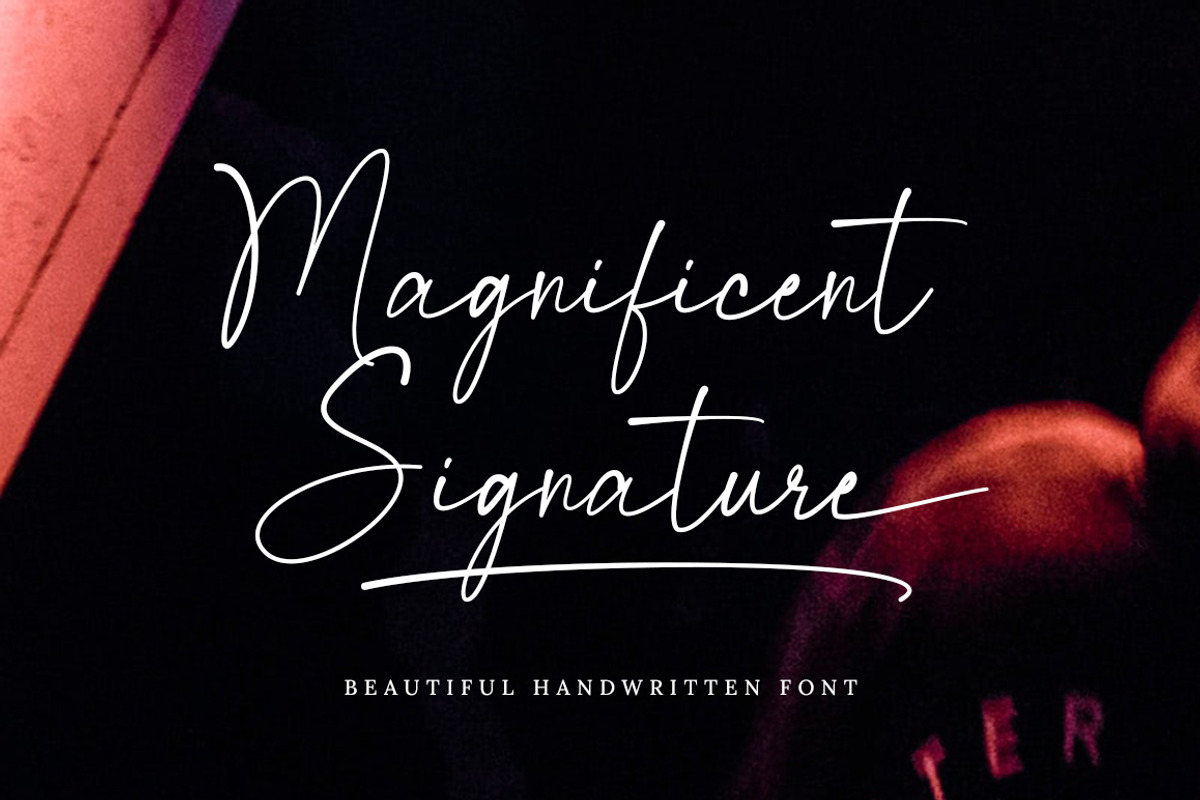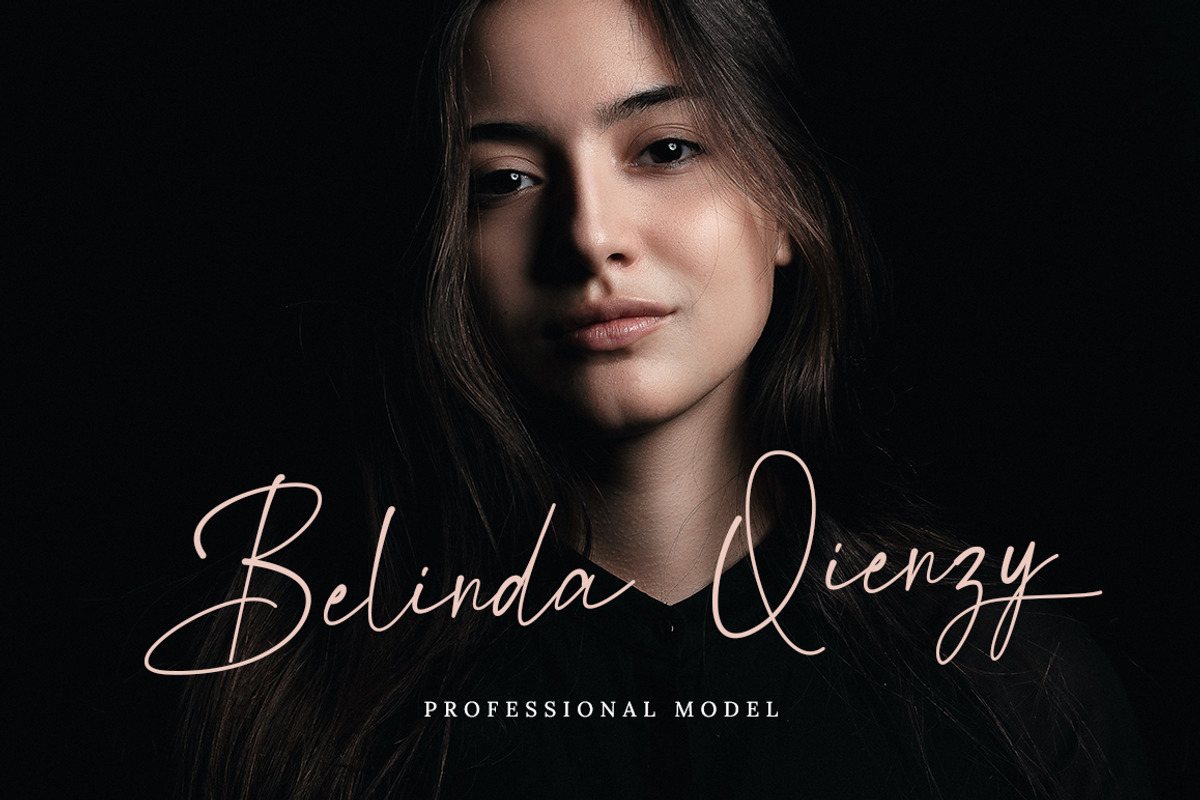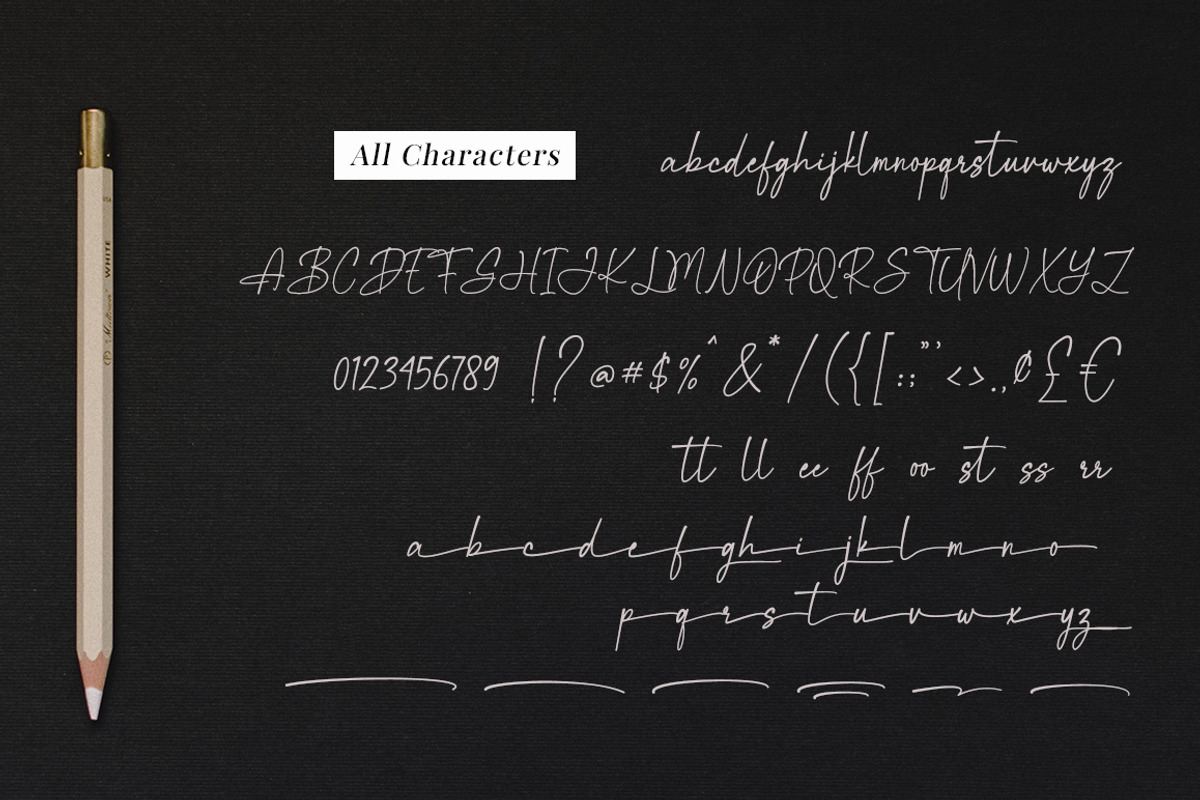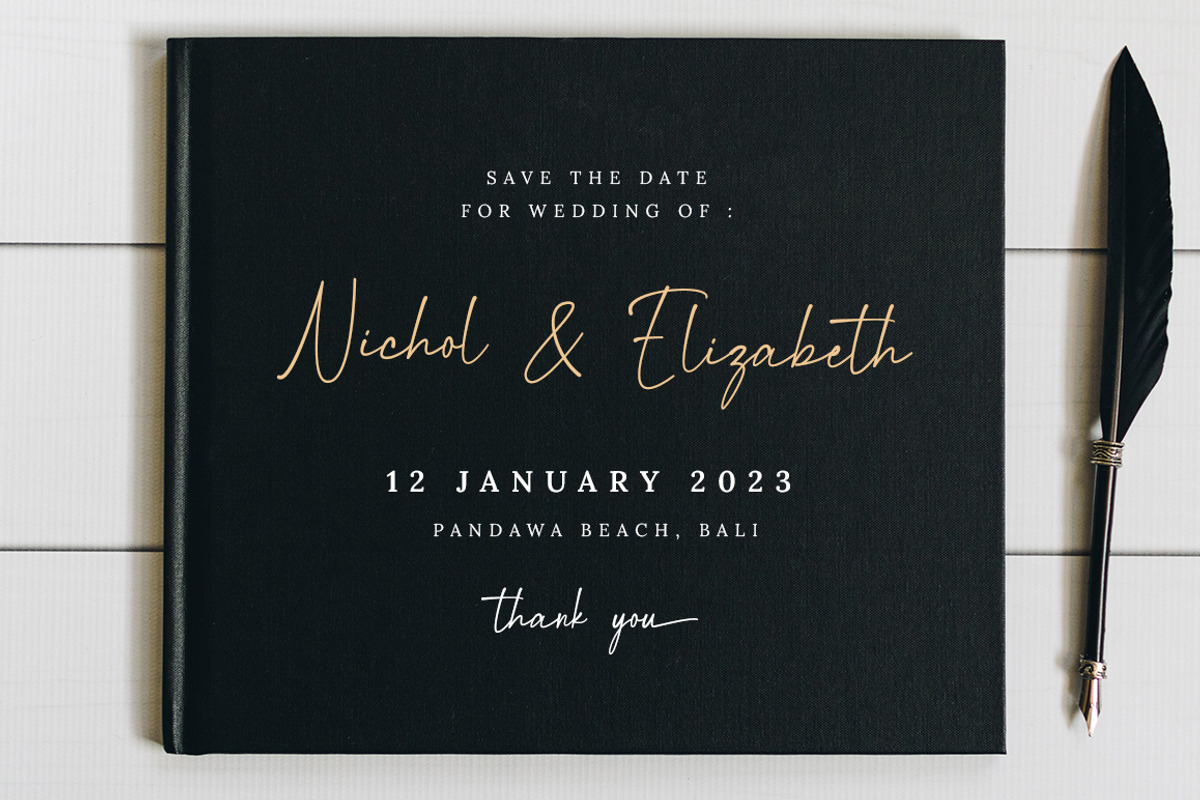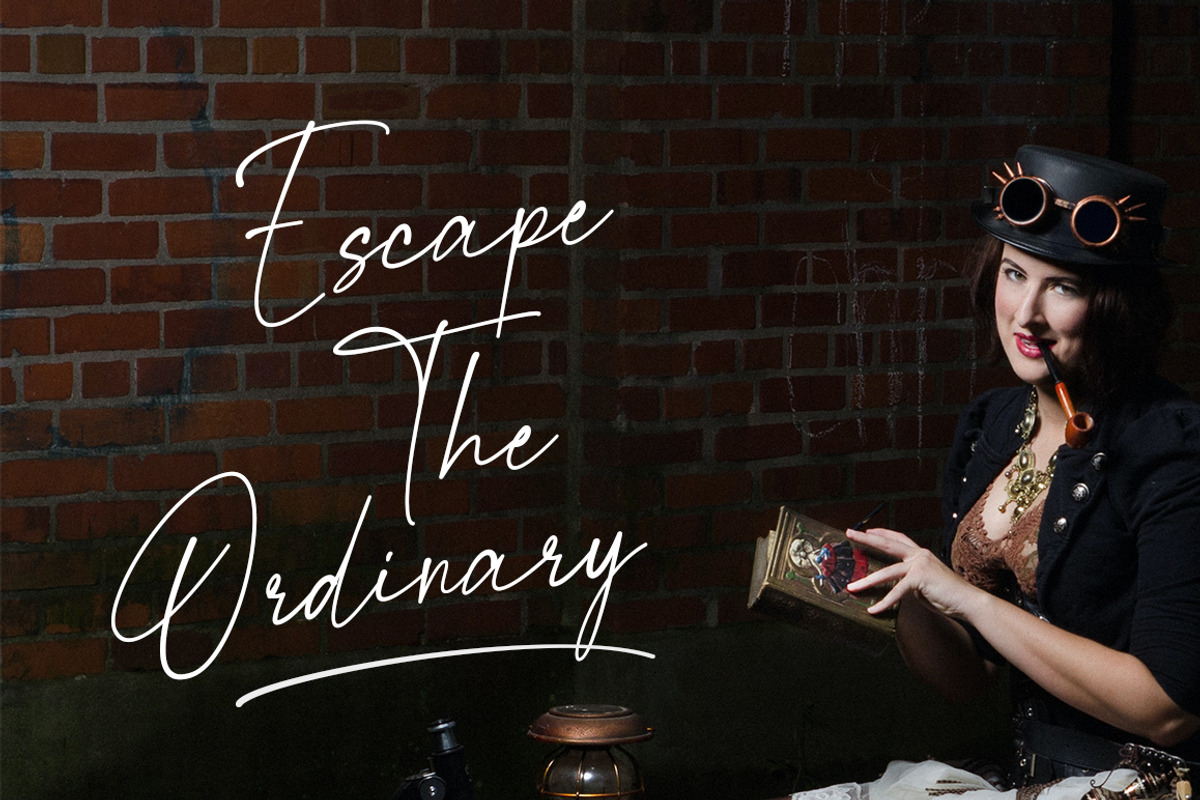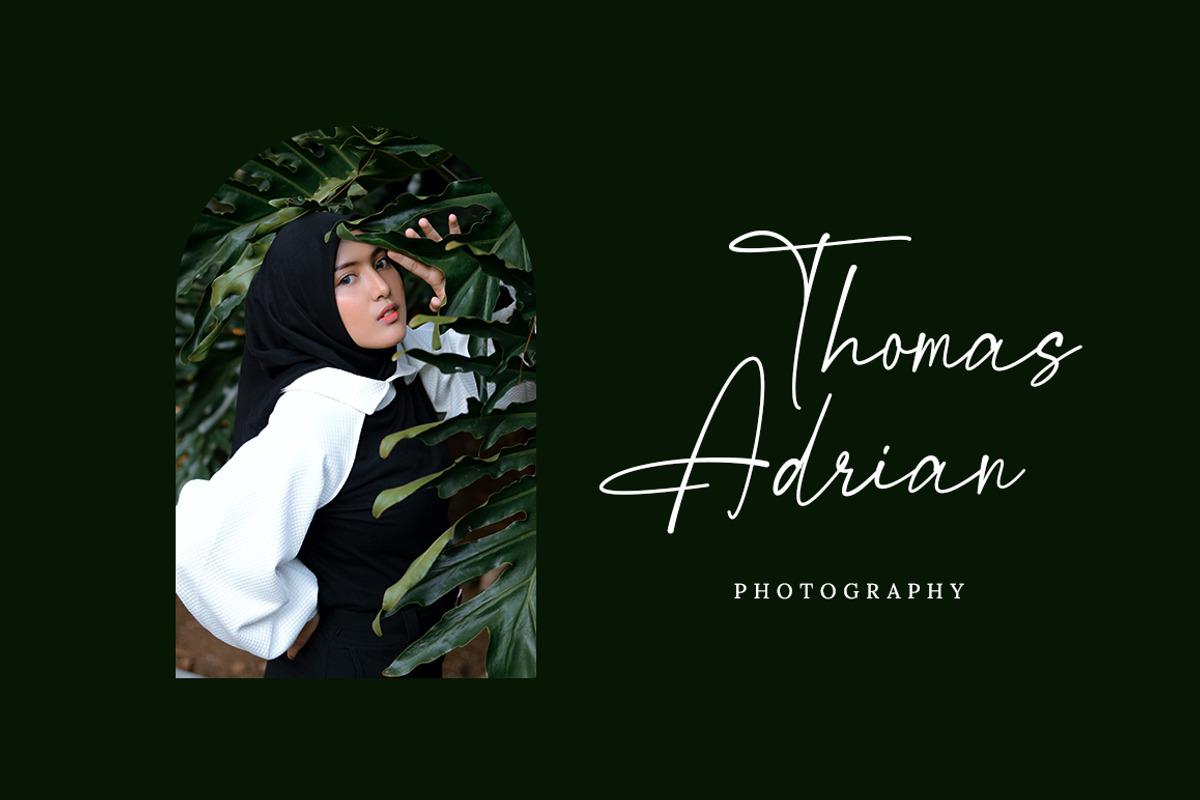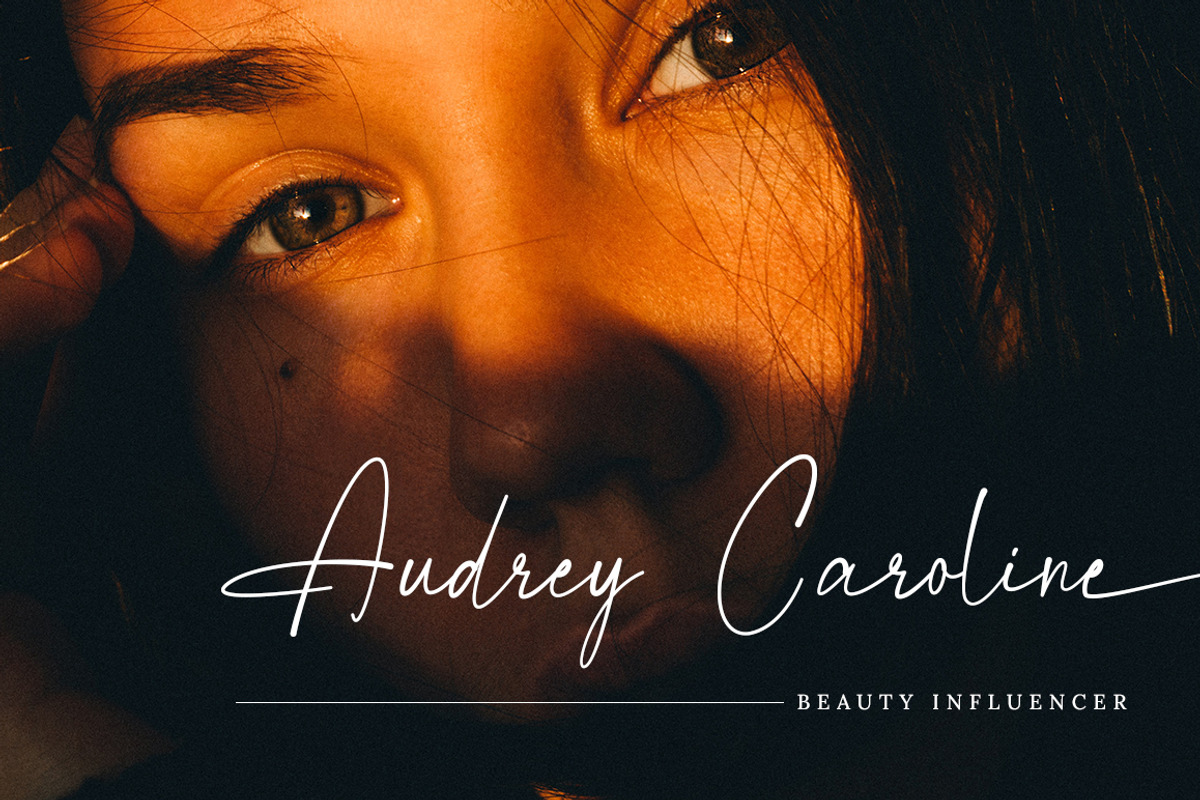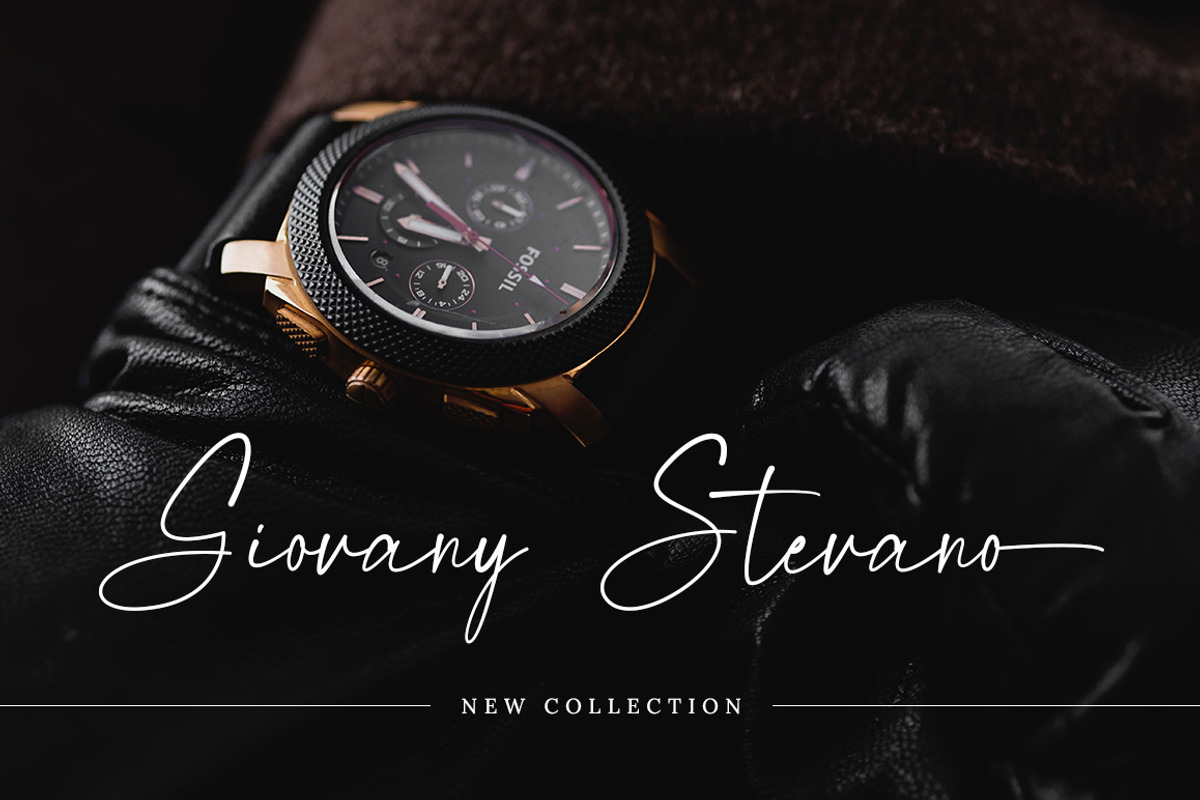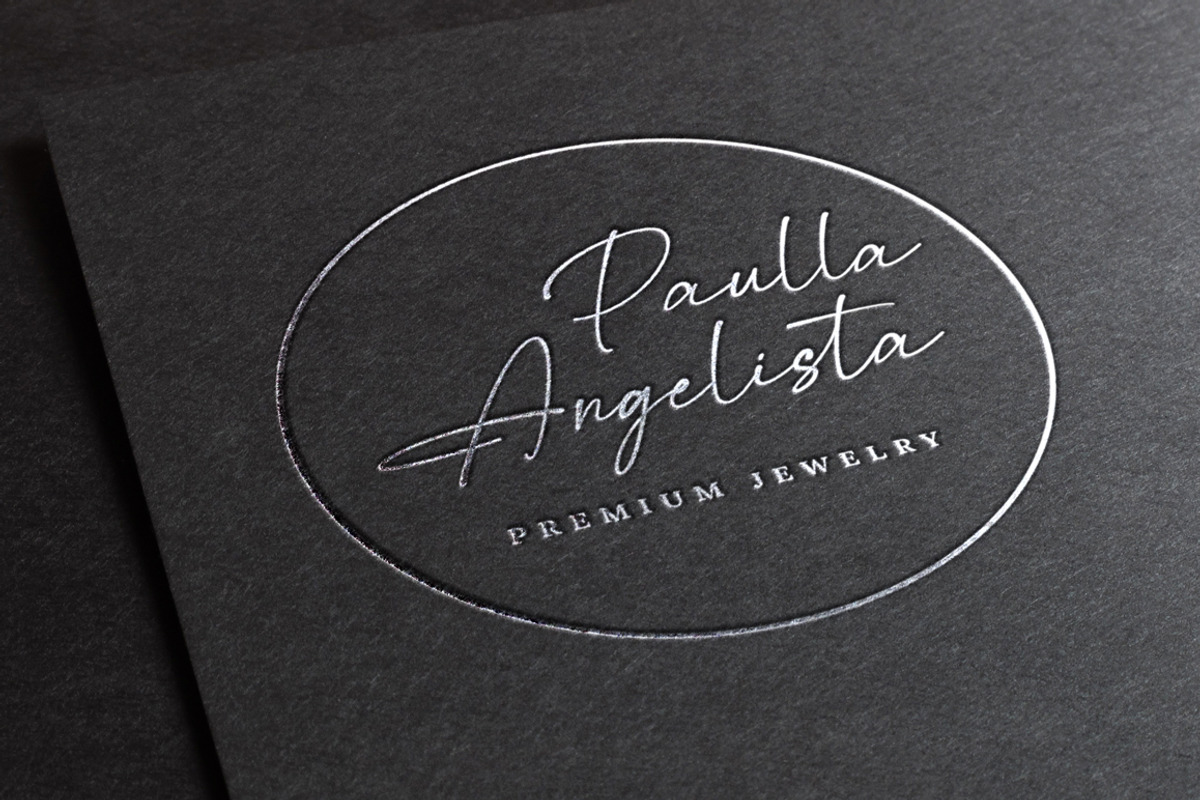
Magnificent Signature Font
Introducing Magnificent Signature Font
Magnificent Signature font is an elegant and beautiful handwritten font that has a natural shape. This stylish font will look beautiful on a variety of design projects. It will add a fun and natural touch to any of your projects!
This font is suitable for use on business branding, fashion, quotes, signature, magazine, logo, social media, photography watermarks, wedding invitations.